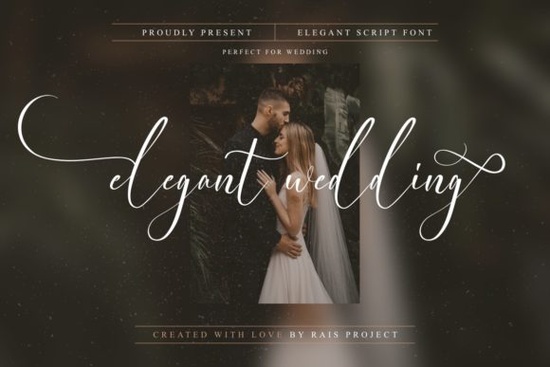
If you're looking for a script font that feels both refined and approachable for wedding-related projects think invitations, signage, monogrammed napkins, or boutique packaging the Elegant Wedding Font fits naturally into that space. It’s not overly ornate, but it carries just enough flourish to feel intentional and personal. Designed with delicate strokes and balanced spacing, it works well at small sizes (like on place cards) and large ones (such as wall art or ceremony backdrops). And because it’s PUA encoded, you’ll get consistent access to alternate characters and swashes across design apps no hunting through glyph panels or switching fonts mid-project.
What kind of projects does Elegant Wedding Font work best for?
This font shines where warmth and intention matter most: custom stationery, small-batch apparel, handmade labels, and digital printables for weddings or bridal showers. It’s also popular among print-on-demand sellers who want to stand out in crowded niches like “bride & groom t-shirts” or “minimalist wedding quotes.” Because it pairs cleanly with simple sans-serifs or soft serifs, it doesn’t demand attention it invites it. Think of it as the quiet confidence in your design, not the loud announcement.
It’s especially helpful if you’re building a cohesive brand identity for a wedding planning service, floral studio, or calligraphy side hustle. You can use it for headlines and logos while keeping body text legible and neutral no visual fatigue for your audience.
How does it compare to other popular script fonts on Creative Fabrica?
Like Font Maker, Elegant Wedding Font offers strong character variation but with more restraint. Where Font Maker leans into playful bounce and energy, Elegant Wedding keeps things grounded and graceful. If you’ve used Fidelity Contrasts, you’ll notice Elegant Wedding has less contrast between thick and thin strokes, making it gentler for longer text blocks or smaller applications.
Compared to Mama Papa Duo, which is built for pairing (two complementary scripts), Elegant Wedding stands confidently alone but still plays nicely with supporting typefaces. And unlike Gistesy, which has a bolder, more textured hand-drawn feel, Elegant Wedding stays clean and scalable across devices and print formats.
For those who love the rhythm of Bread and Butter Duo, Elegant Wedding shares its thoughtful spacing and natural flow but without the dual-weight structure. That makes it easier to implement when you only need one expressive script voice.
What do users actually do with this font?
- Create printable wedding timelines and seating charts that feel personal, not generic
- Design SVG files for Cricut and Silhouette users especially for foil-pressed invitations or wood signs
- Build Canva templates for Etsy sellers who don’t want to license fonts separately
- Add subtle branding to custom soap wraps, candle labels, or tea packaging for bridal showers
- Produce social media graphics for local venues or vendors consistent tone without over-designing
One thing users consistently mention: it prints clearly even on matte paper or kraft cardstock. That’s rare for delicate scripts, and it matters if you’re ordering samples or fulfilling small orders yourself.
Is it beginner-friendly?
You’ll find the swashes are intuitive: often triggered by typing a letter twice (like “ff” or “tt”) or using the “stylistic alternates” panel. Nothing forces you to learn new shortcuts just explore what feels right for your layout.
You can also see how others use it by searching for Elegant Wedding Font on Creative Fabrica’s marketplace. Real projects like SVG bundles, wedding planner kits, or digital invitation suites show how it behaves in context, not just isolated letters.
- Test a few words with swashes enabled (try “love,” “forever,” or initials)
- Pair it with one neutral font (e.g., Lora, Montserrat, or Playfair Display) for balance